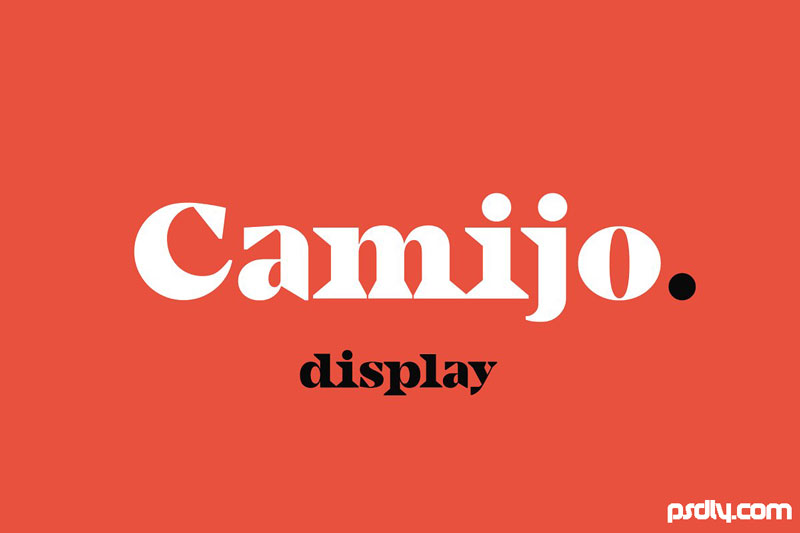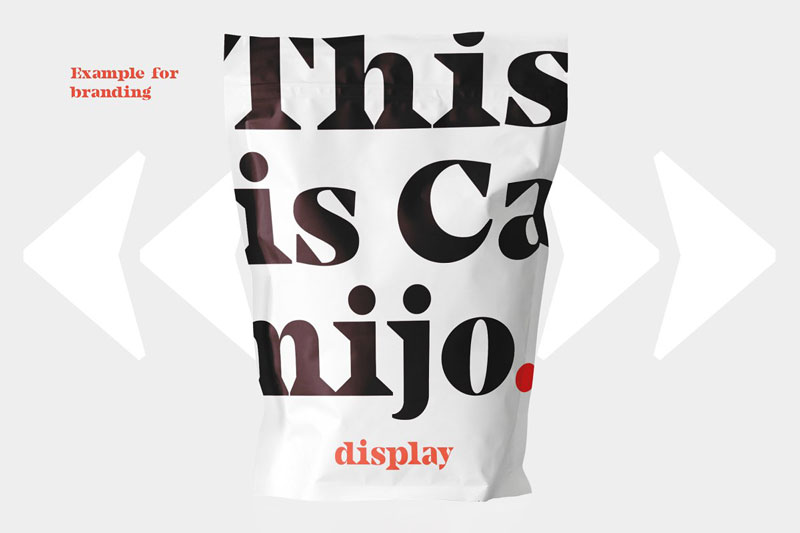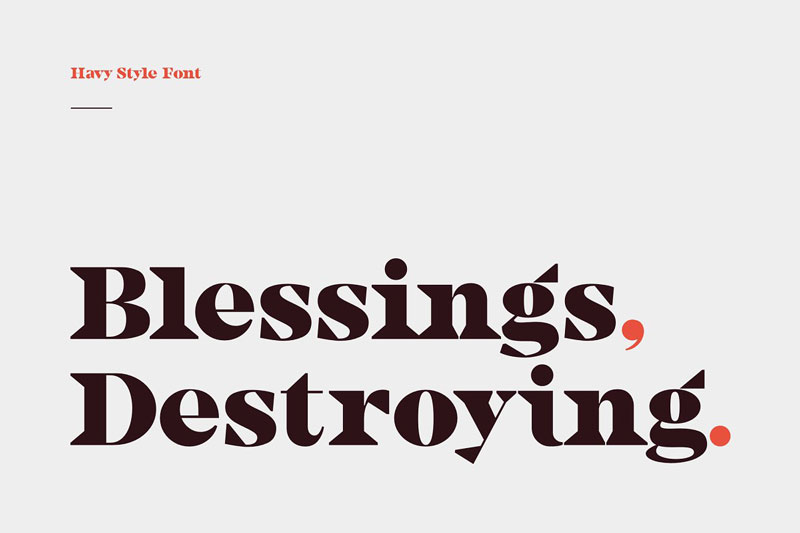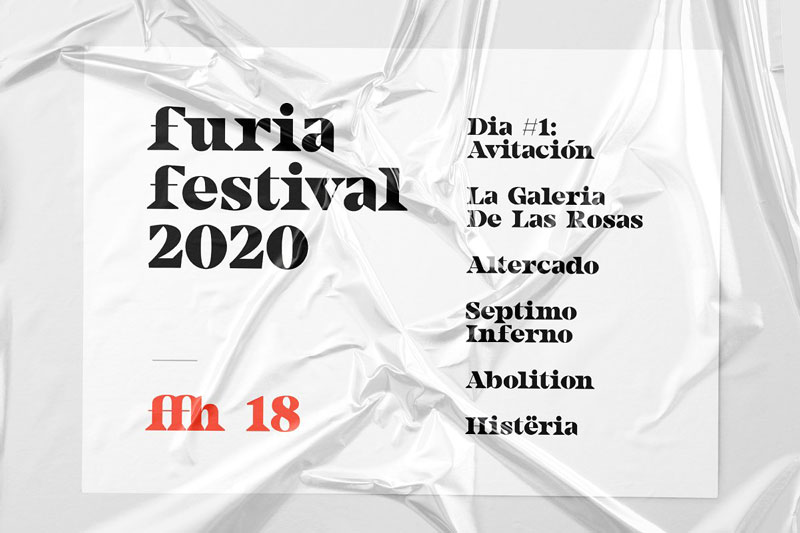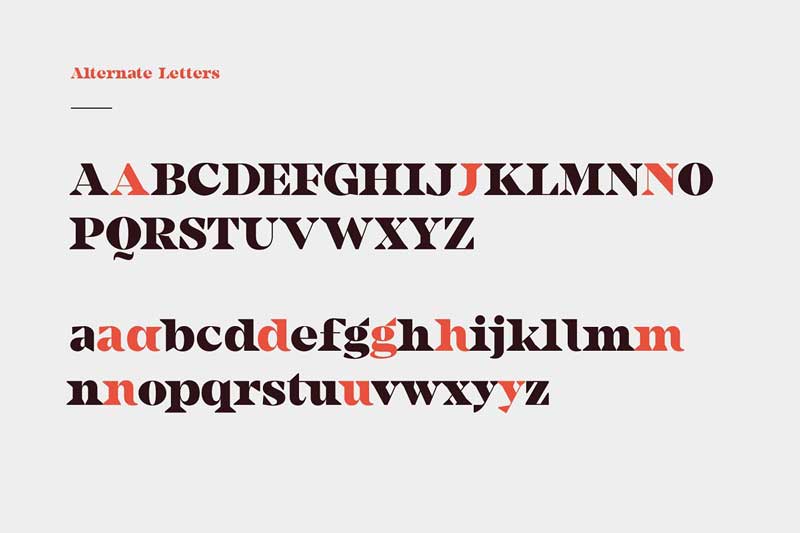
Camijo Display Serif Font 4677910
Camijo is a contemporary serif typeface with characteristics and defined features. This font was inspired by the idea of mixing different types of terminals in order to give the font a singular appearance. Its design is composed of diverse styles such as Didone and contemporary faces.
Camijo comes with a set of 352 characters. This font was specially designed for branding, advertising, editorial design, and use on Tv and social media.